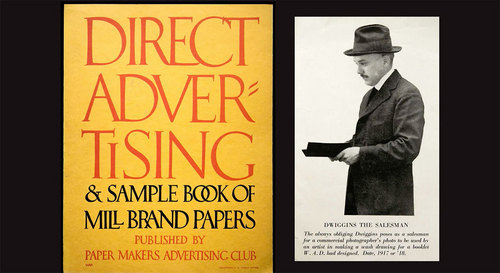
Over 150 samples of William Addison Dwiggins’ handcrafted lettering, stencils, type design and puppetry are seen in this talk by Rob Saunders (Letterform Archive) at the San Francisco Public Library.